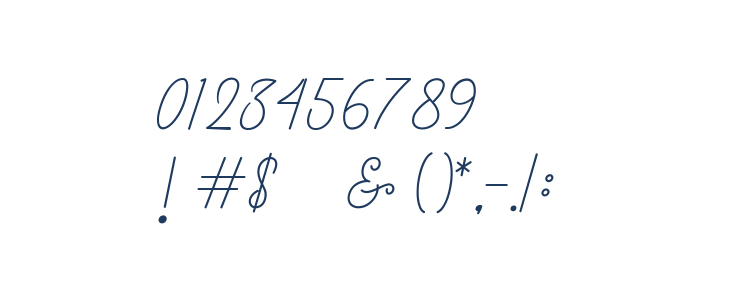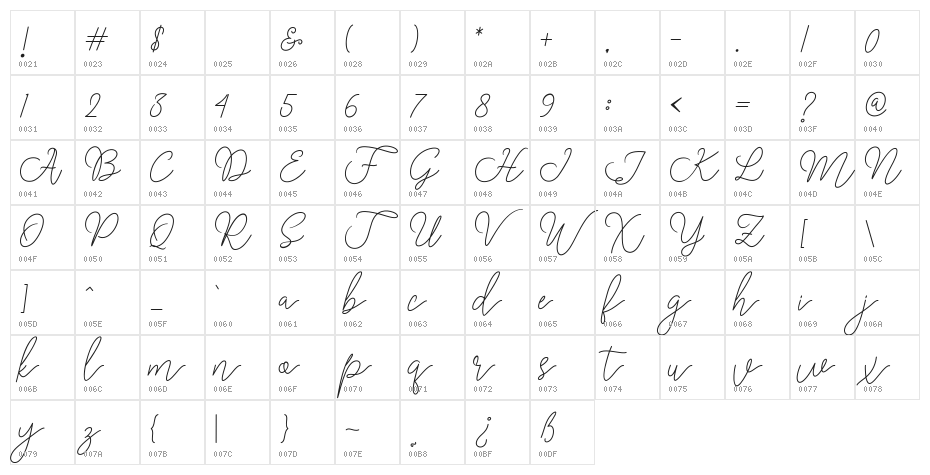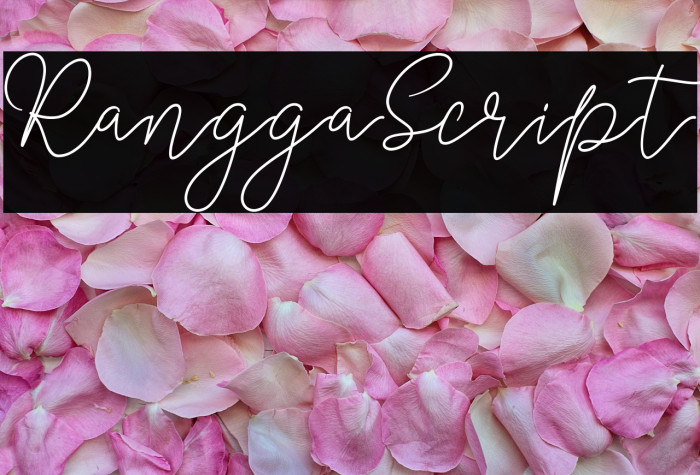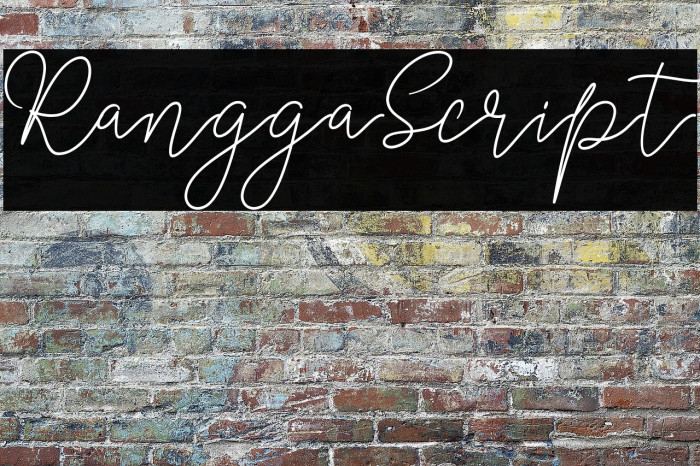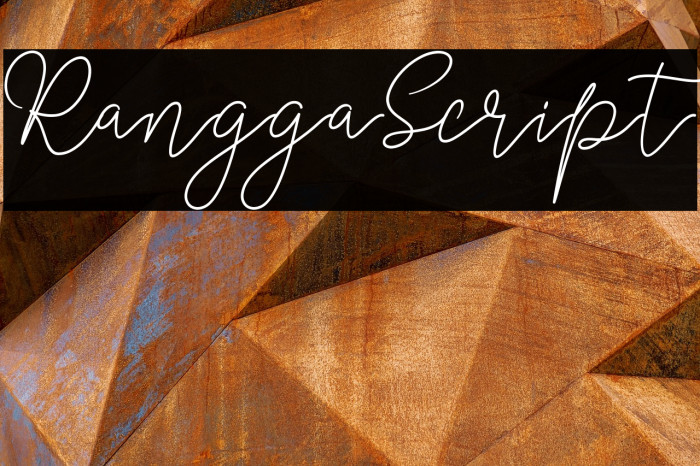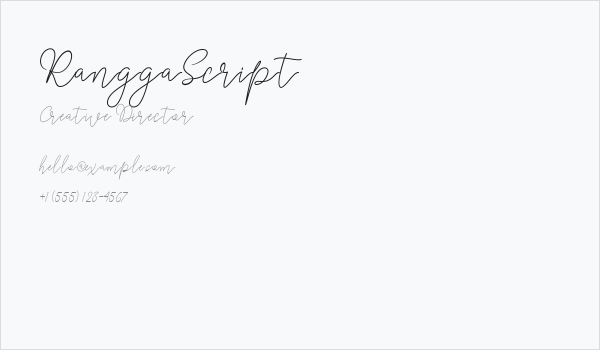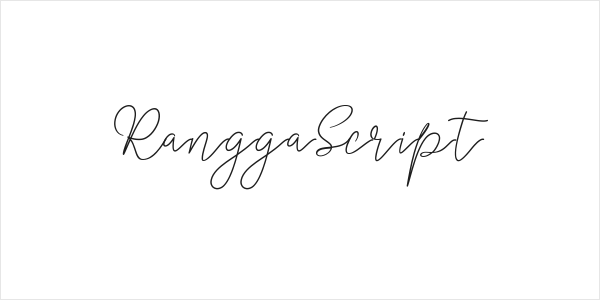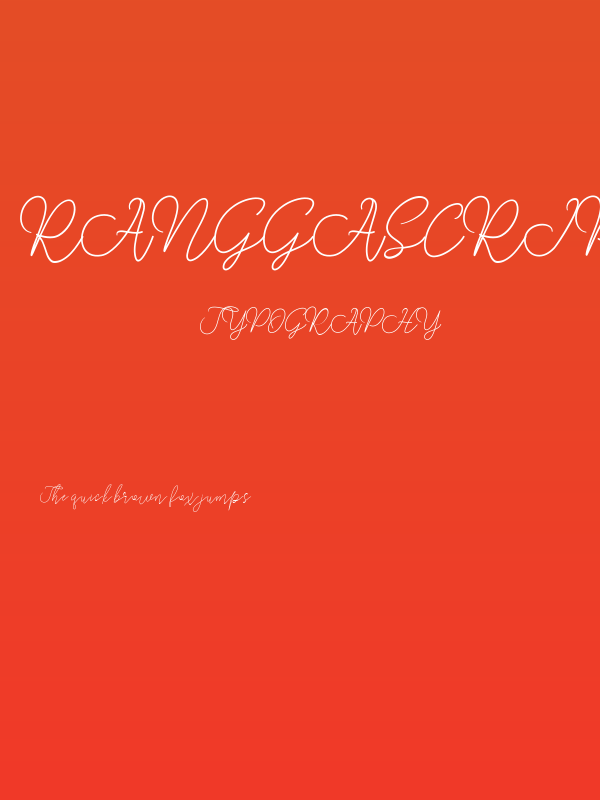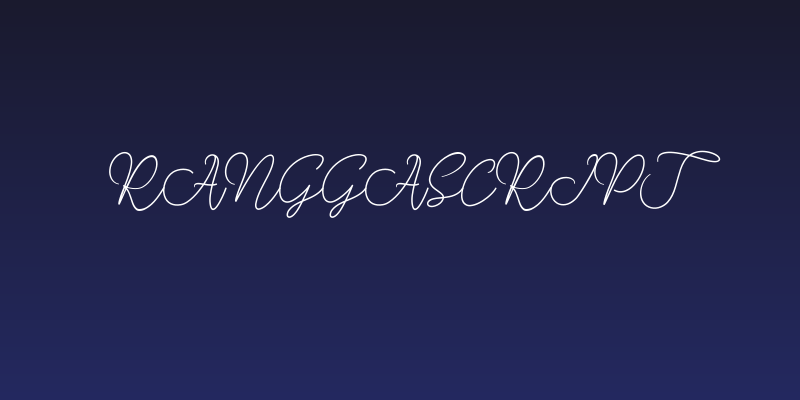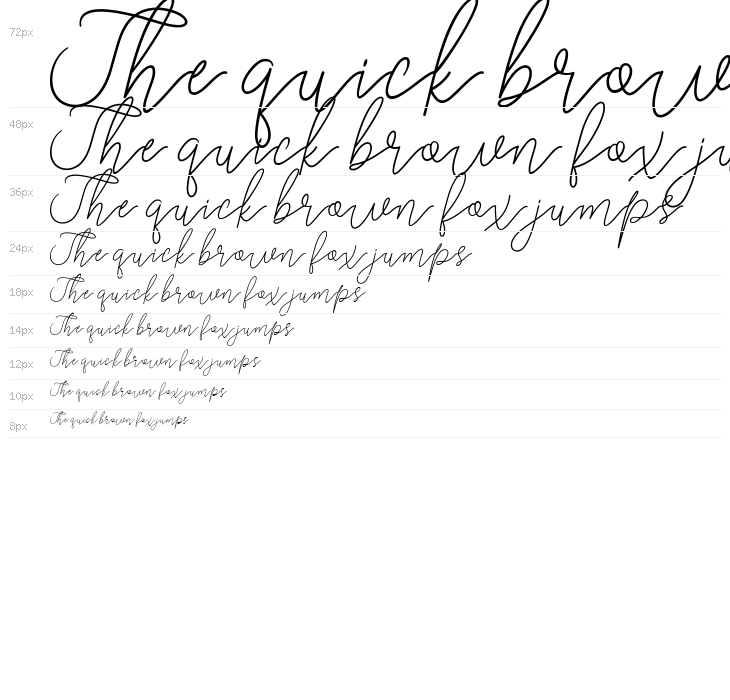
RanggaScript Font
RanggaScript Description
This elegant script font features fluid, connected strokes that mimic the natural flow of handwriting. The uppercase letters are ornate with sweeping curves, while the lowercase letters maintain a consistent rhythm and grace. Numbers and special characters are designed with the same attention to detail, ensuring a cohesive look across all elements. The font's delicate lines and smooth transitions make it ideal for projects that require a personal touch. Its sophisticated style is perfect for invitations, branding, and any design that seeks to convey elegance and refinement.
| Overall Style | Elegant, Handwritten |
| Use Case | Logos, Invitations, Branding |
| Proposed Projects | Ideal for wedding invitations, personal branding, elegant stationery, and luxury product packaging. |